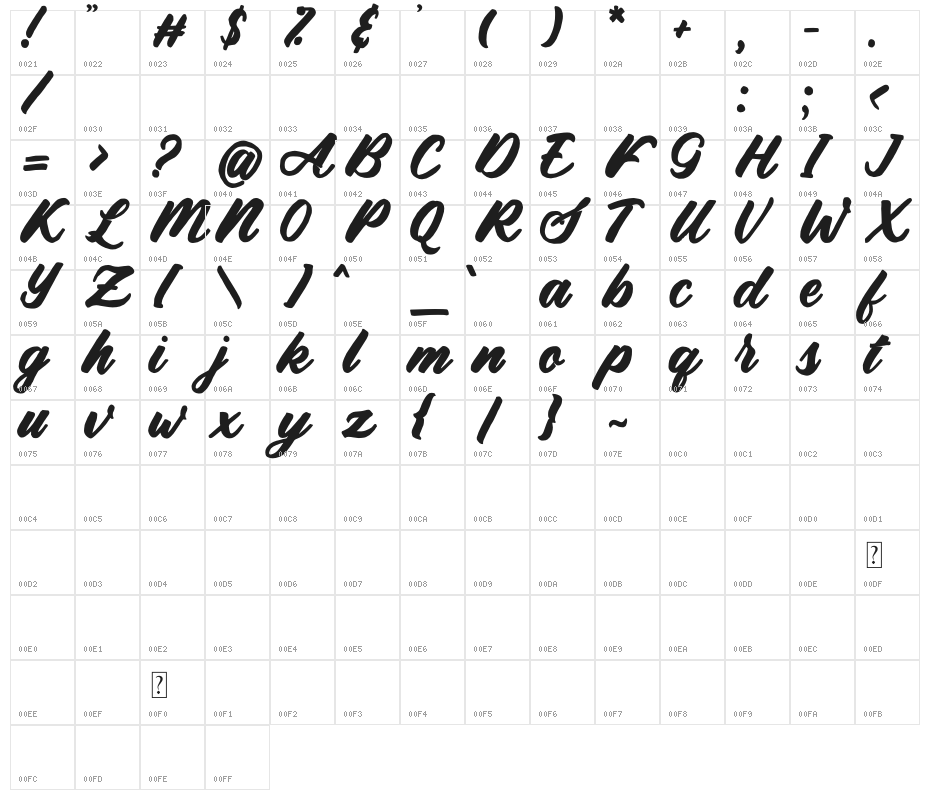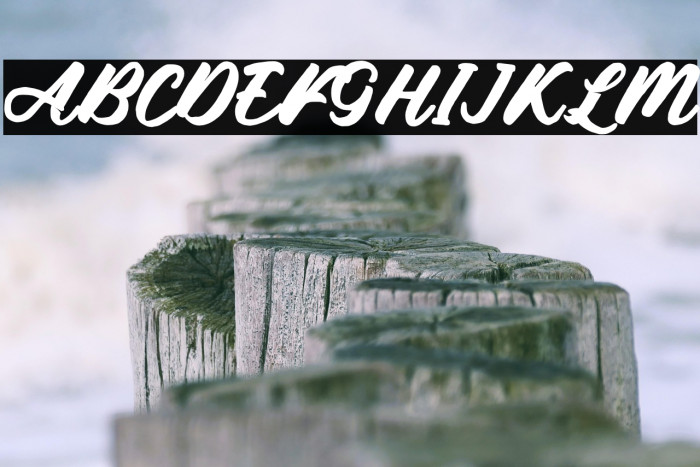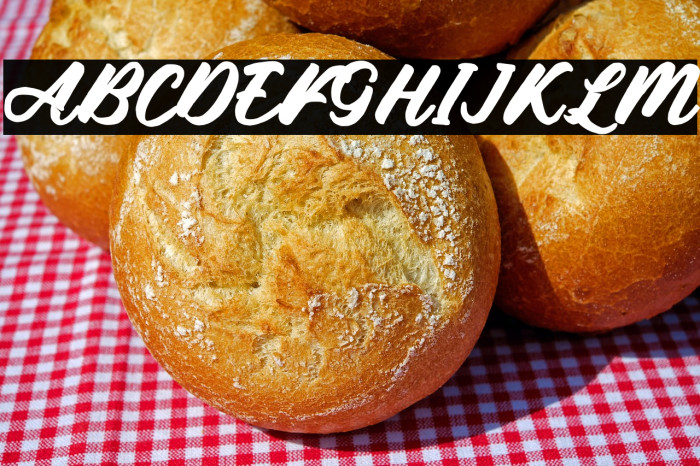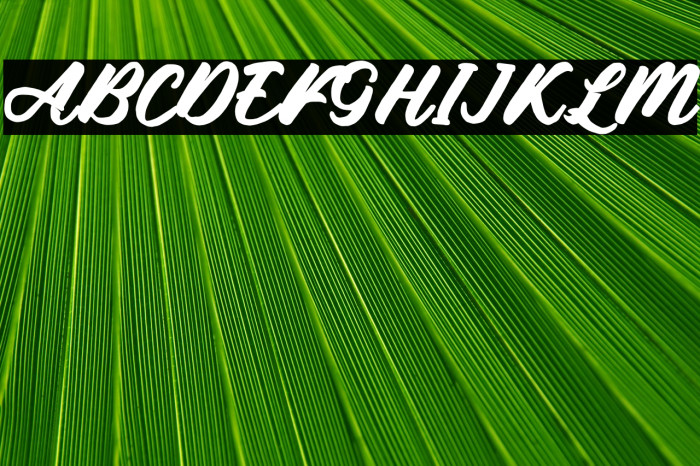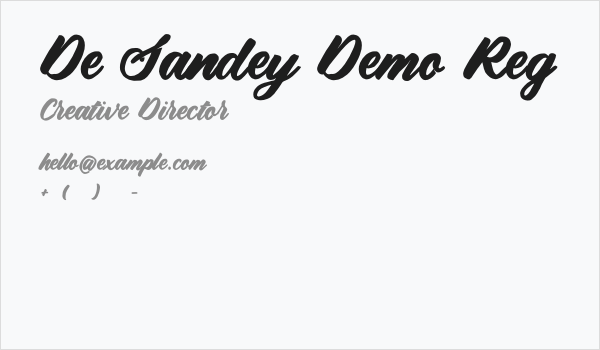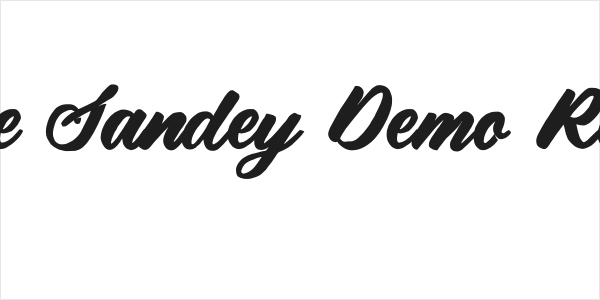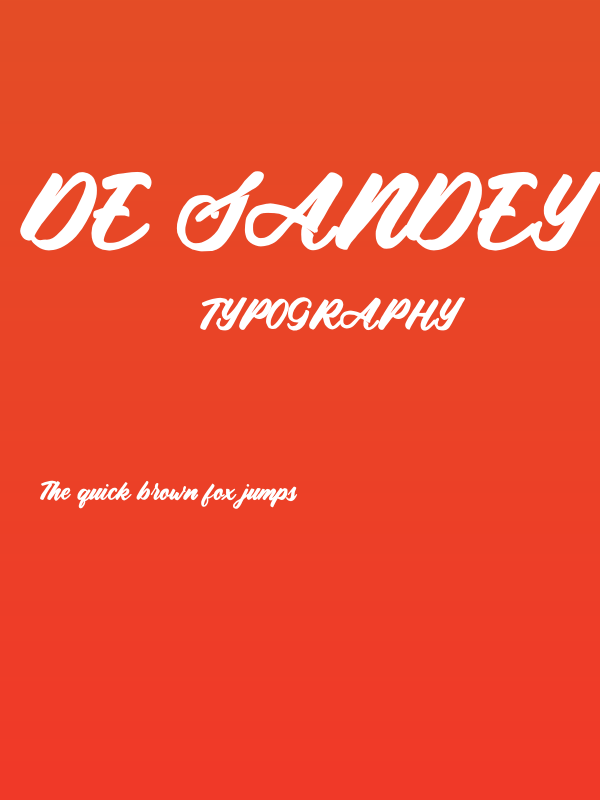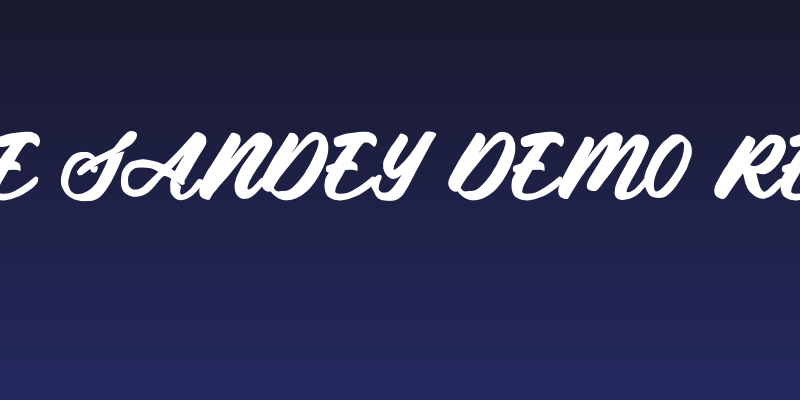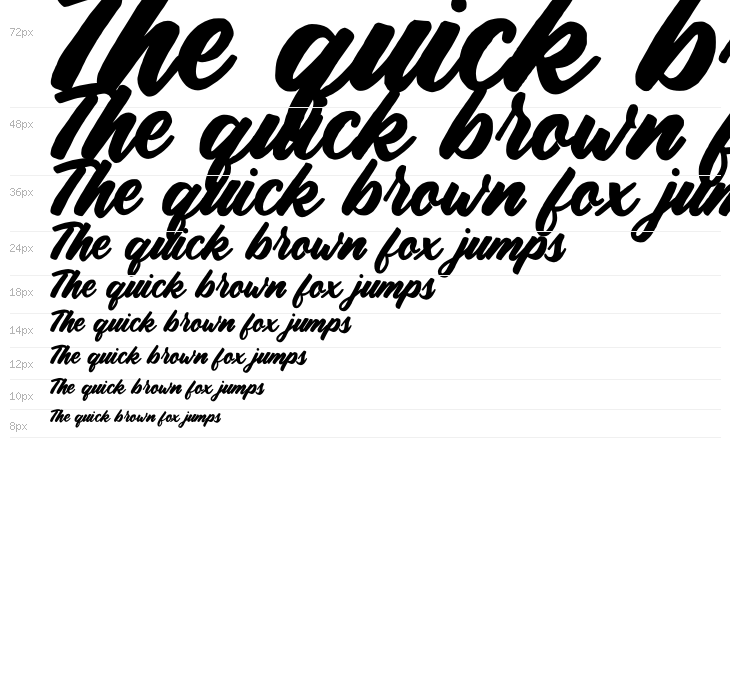
De Sandey Demo Reg Font
De Sandey Demo Reg Description
This font features a bold, cursive style with a strong emphasis on fluidity and elegance. The characters are closely connected, creating a seamless flow that mimics natural handwriting. The uppercase letters are slightly larger and more pronounced, while the lowercase letters maintain a consistent height, enhancing readability. The strokes are thick and uniform, providing a robust appearance. Special characters are integrated smoothly, maintaining the overall aesthetic. This font exudes a sense of sophistication and creativity, making it ideal for artistic and expressive designs.
| Use Case | Logos, Invitations, Artistic designs |
| Proposed Projects | Ideal for wedding invitations, branding, logo design, and artistic projects requiring a personal touch. |